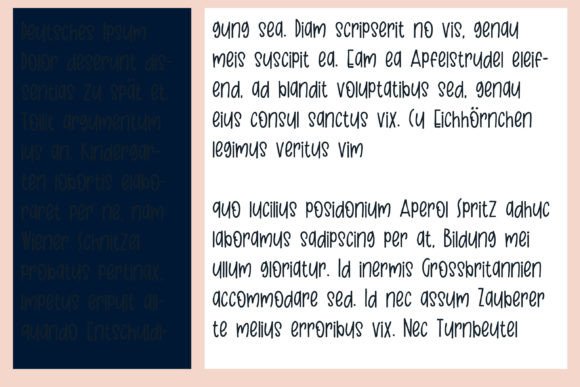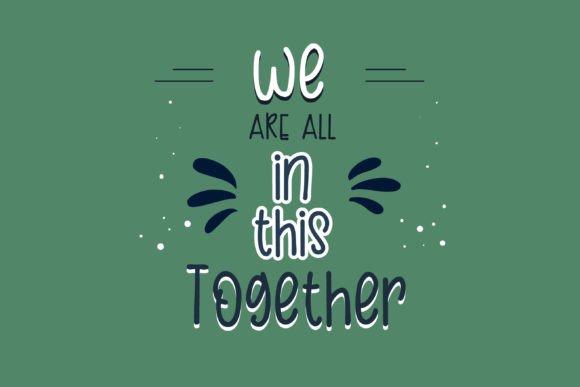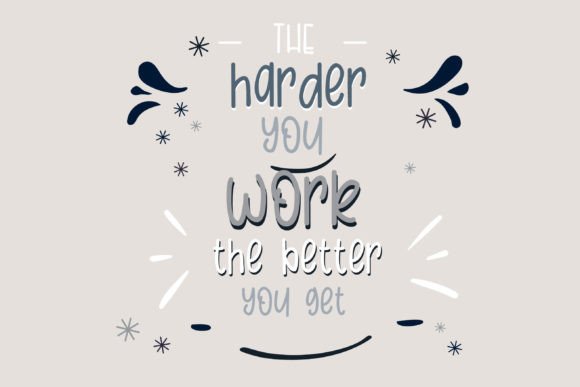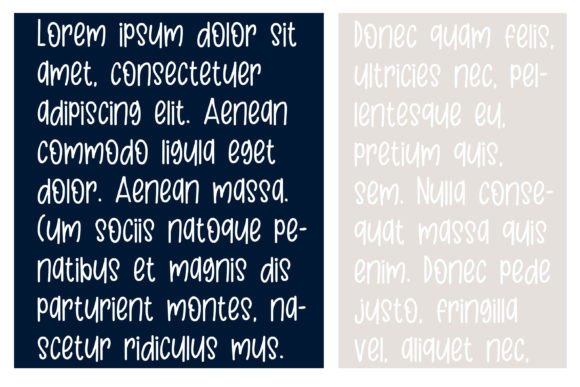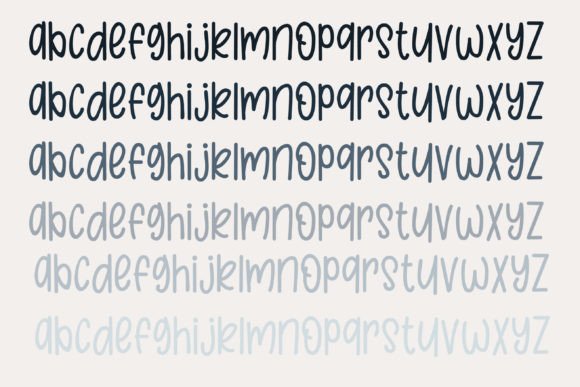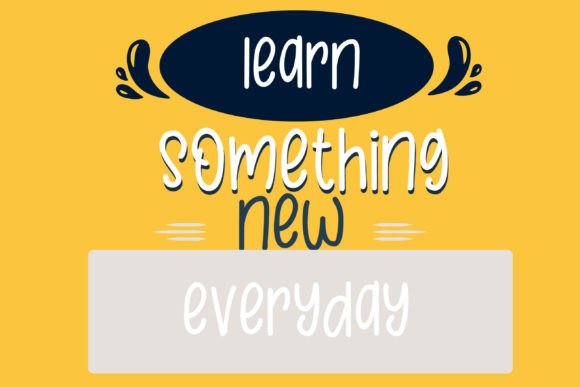
Introducing Goldenrod Font: The Perfect Blend of Youthful and Whimsical
Are you looking for a font that can add a touch of playfulness and modernity to your designs? Look no further than the Goldenrod Font! This hand-written sans serif font is the perfect choice for designers and crafters who want to create visually appealing and engaging content. In this article, we’ll dive into the world of Goldenrod Font and explore its features, benefits, and uses.
A Youthful and Whimsical Font
Goldenrod Font is a hand-written sans serif font that exudes a sense of youthfulness and whimsy. Its unique and playful design makes it perfect for a wide range of applications, from greeting cards to headlines, and much more. The font’s casual and carefree vibe is sure to capture the attention of your audience and leave a lasting impression.
Key Features of Goldenrod Font
- Hand-written sans serif design: Goldenrod Font boasts a unique, hand-written sans serif design that sets it apart from other fonts.
- Youthful and whimsical: The font’s playful and carefree vibe makes it perfect for designs that require a touch of modernity and fun.
- Versatile: Goldenrod Font can be used for a wide range of applications, from greeting cards to headlines, and much more.
- Easy to read: Despite its playful design, Goldenrod Font is easy to read and understand, making it perfect for body text and captions.
Benefits of Using Goldenrod Font
So, why should you choose Goldenrod Font for your next project? Here are just a few benefits of using this amazing font:
- Adds a touch of personality: Goldenrod Font can add a touch of personality and whimsy to your designs, setting them apart from the crowd.
- Perfect for creative projects: The font’s playful design makes it perfect for creative projects, such as greeting cards, posters, and flyers.
- Easy to pair with other fonts: Goldenrod Font can be easily paired with other fonts to create a unique and visually appealing design.
- Great for digital and print designs: Whether you’re designing for digital or print, Goldenrod Font is the perfect choice.
Uses of Goldenrod Font
So, what can you use Goldenrod Font for? The possibilities are endless! Here are a few ideas to get you started:
- Greeting cards: Add a touch of whimsy and personality to your greeting cards with Goldenrod Font.
- Headlines: Use Goldenrod Font to create eye-catching headlines that grab attention.
- Posters and flyers: The font’s playful design makes it perfect for posters and flyers.
- Social media graphics: Use Goldenrod Font to create engaging social media graphics that stand out.
- Branding and packaging: The font’s unique design makes it perfect for branding and packaging designs.
Tips for Using Goldenrod Font
Here are a few tips for using Goldenrod Font in your designs:
- Use it with a contrasting font: Pair Goldenrod Font with a contrasting font to create visual interest.
- Experiment with colors: The font’s playful design makes it perfect for experimenting with different colors and color combinations.
- Don’t be afraid to get creative: Goldenrod Font is the perfect choice for creative and experimental designs.
In conclusion, Goldenrod Font is a unique and versatile font that can add a touch of youthfulness and whimsy to your designs. Its hand-written sans serif design makes it perfect for a wide range of applications, from greeting cards to headlines, and much more. With its easy-to-read design and playful vibe, Goldenrod Font is the perfect choice for designers and crafters who want to create visually appealing and engaging content. So why wait? Add Goldenrod Font to your projects today and see the amazing results for yourself!